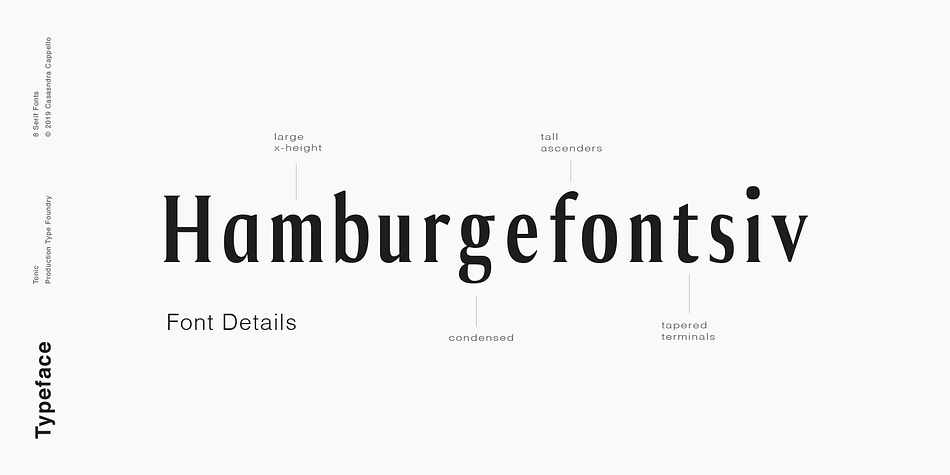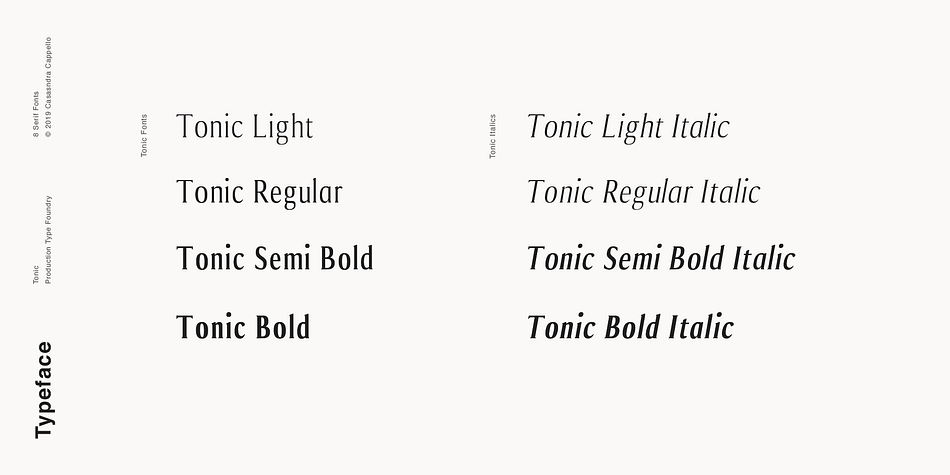
Designed by Cassandra Cappello, Tonic is a serif font family. This typeface has eight styles and was published by Cappello Designs.
Tonic a condensed serif typeface with soft, bracketed serifs. It has a little bit of personality and can be used for headers and body copy but is mainly intended for headers. Tonic’s luxurious look comes from its combination of roundedness and sharpness. It has a large x-height giving the font an elongated look but also increasing legibility.
This font family includes all Latin characters (including accents), numbers, special characters, and punctuation.